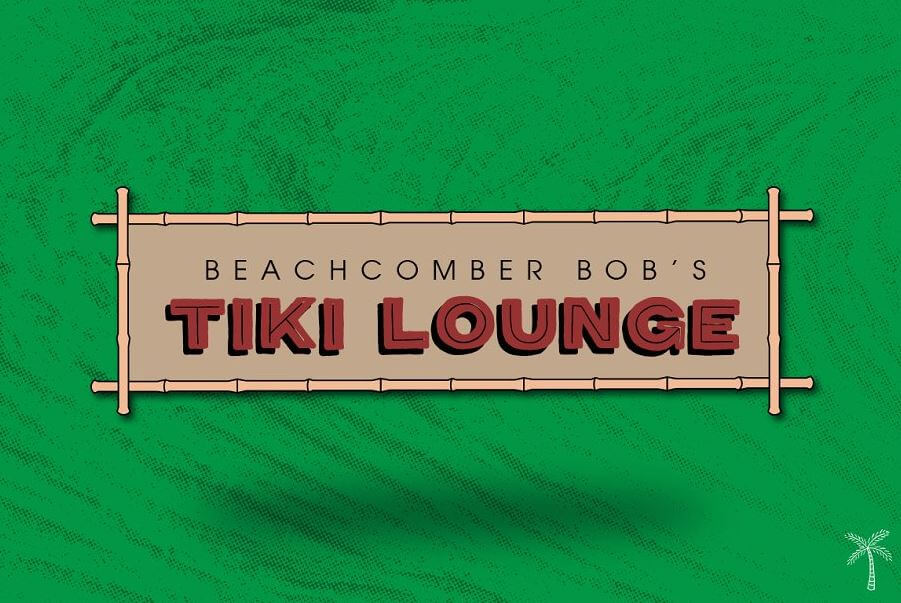
Forbidden Isle Tiki Font
Forbidden Isle Tiki Font best font for tiki. It’s far designed via spring to destroy jake, that is a top-class font, are offered on creative market, but it was superb, it’s miles free today for download. Forbidden isle performs at the old, surfy tiki fonts of the 70s.
Brought into the contemporary instances with a purifier, bold appearance. pictures are conjured up of bamboo bars, grass skirts, and eclectic mugs.
Style Of Forbidden Isle Tiki Font